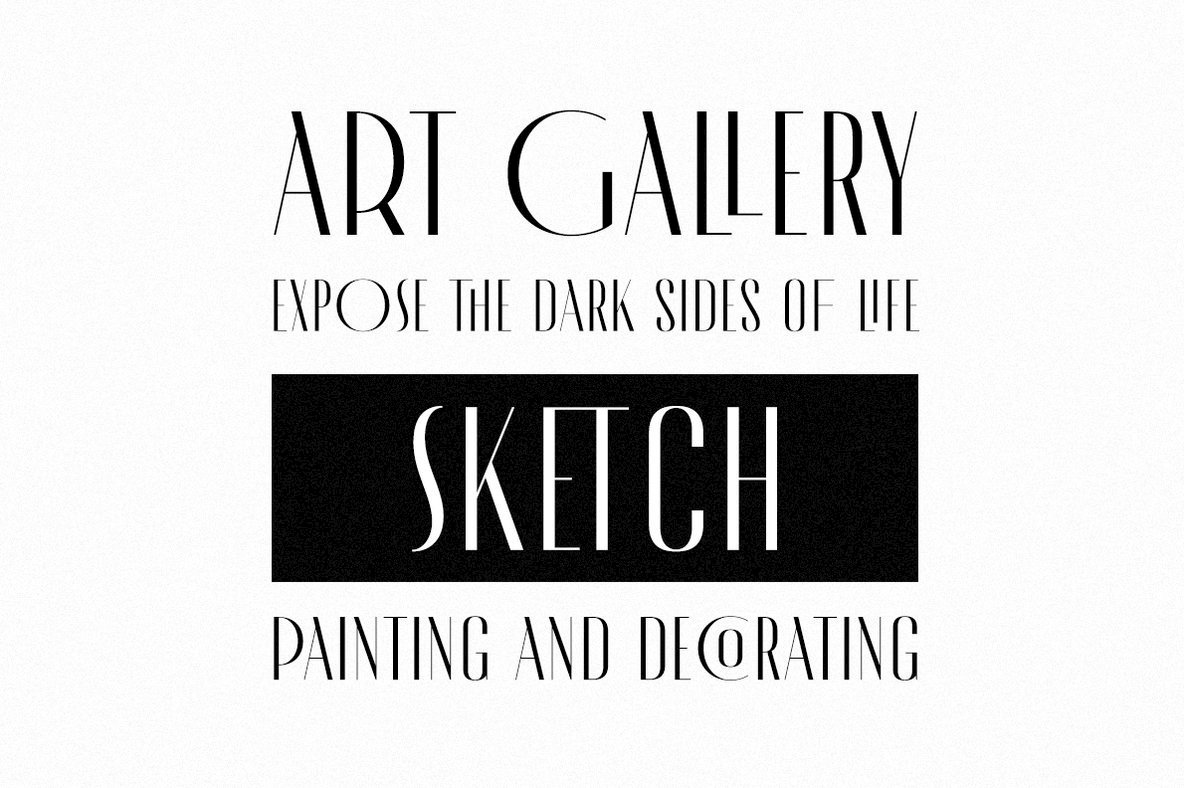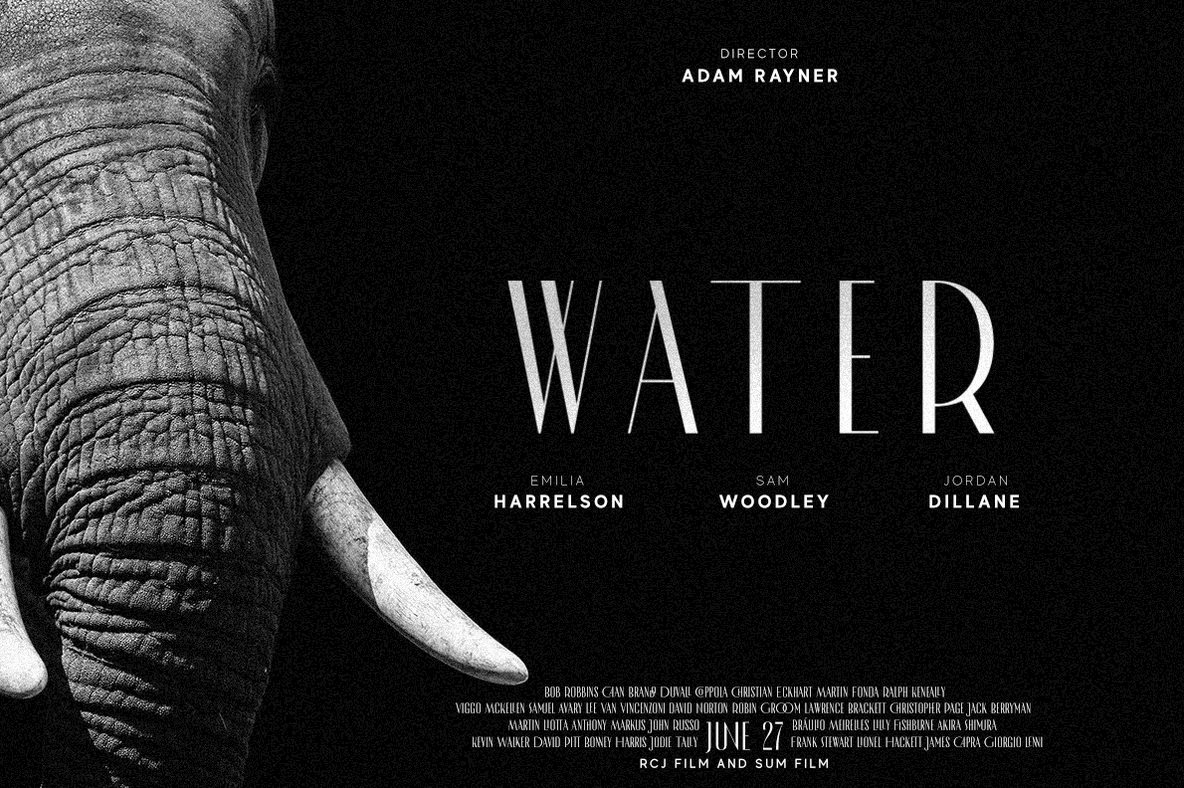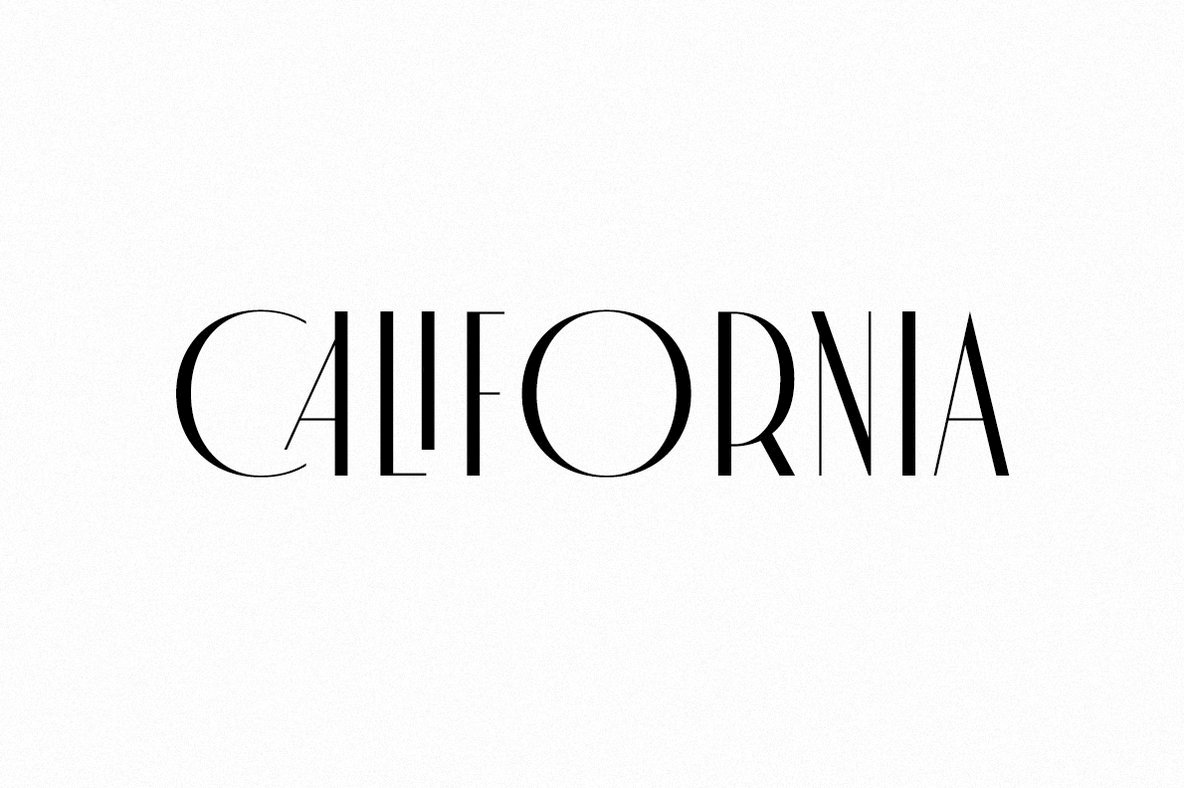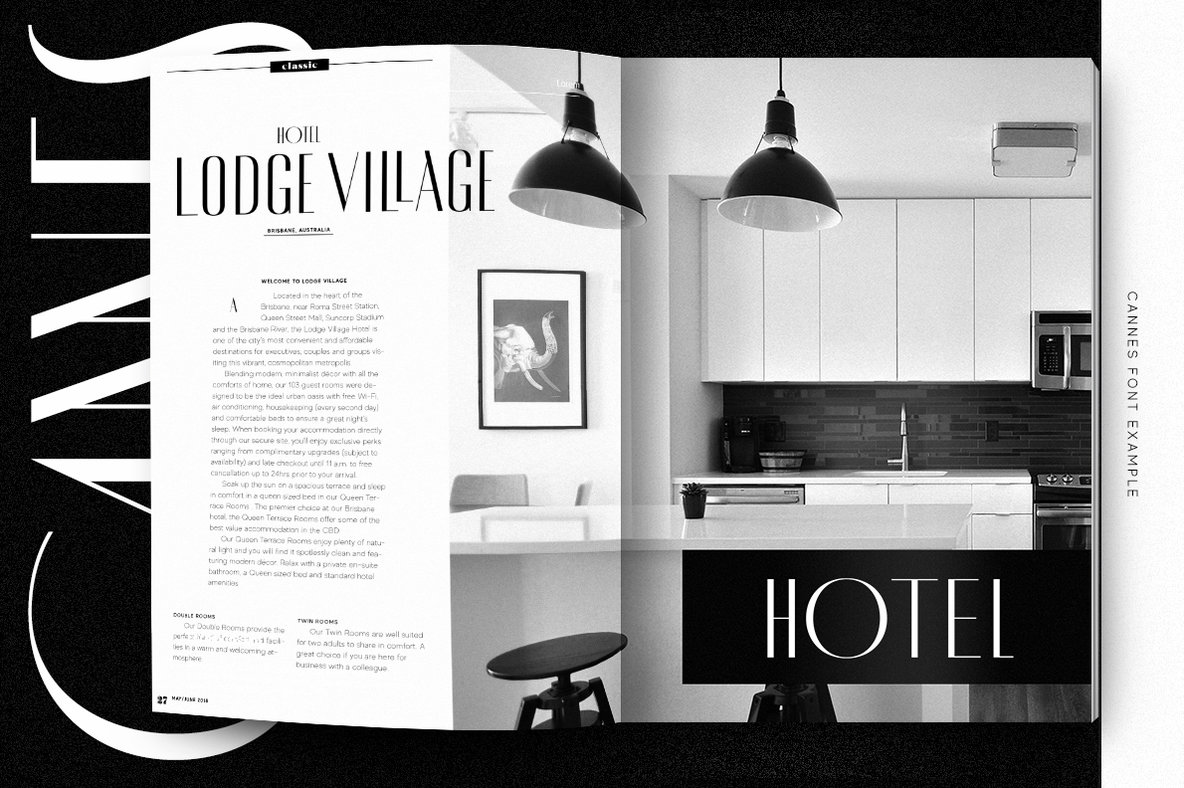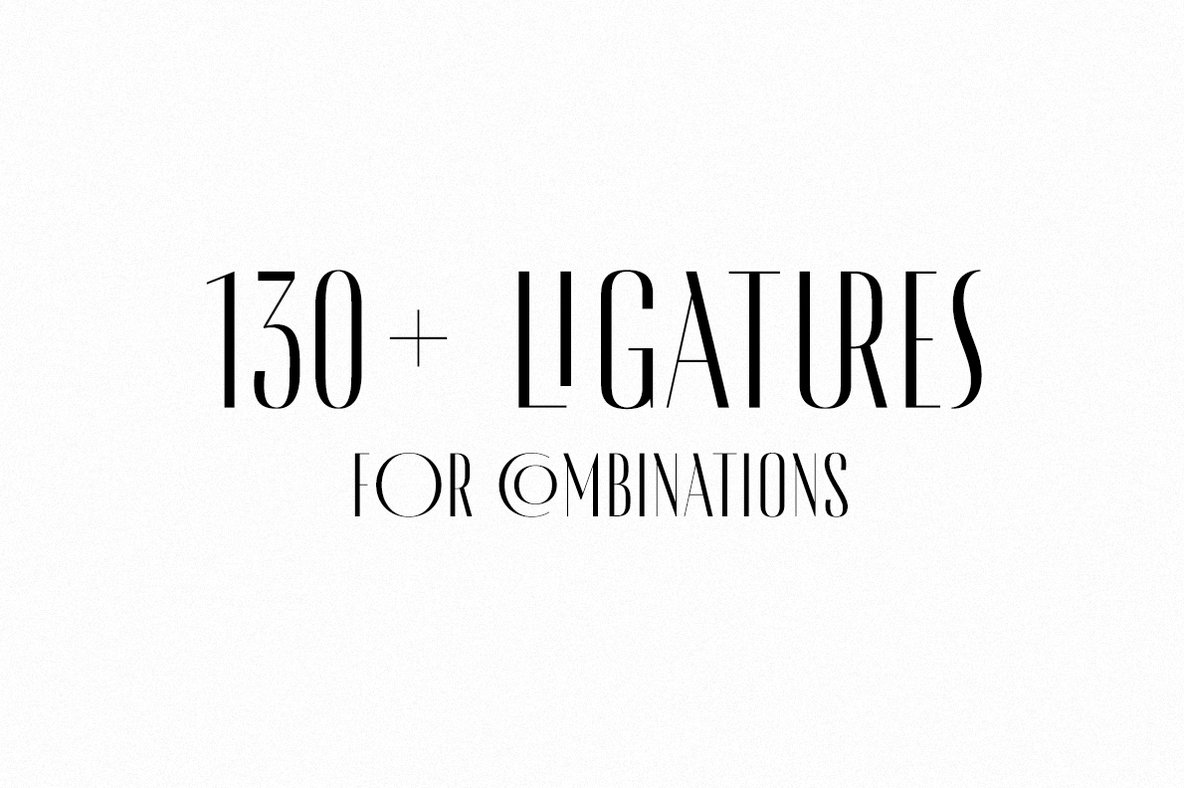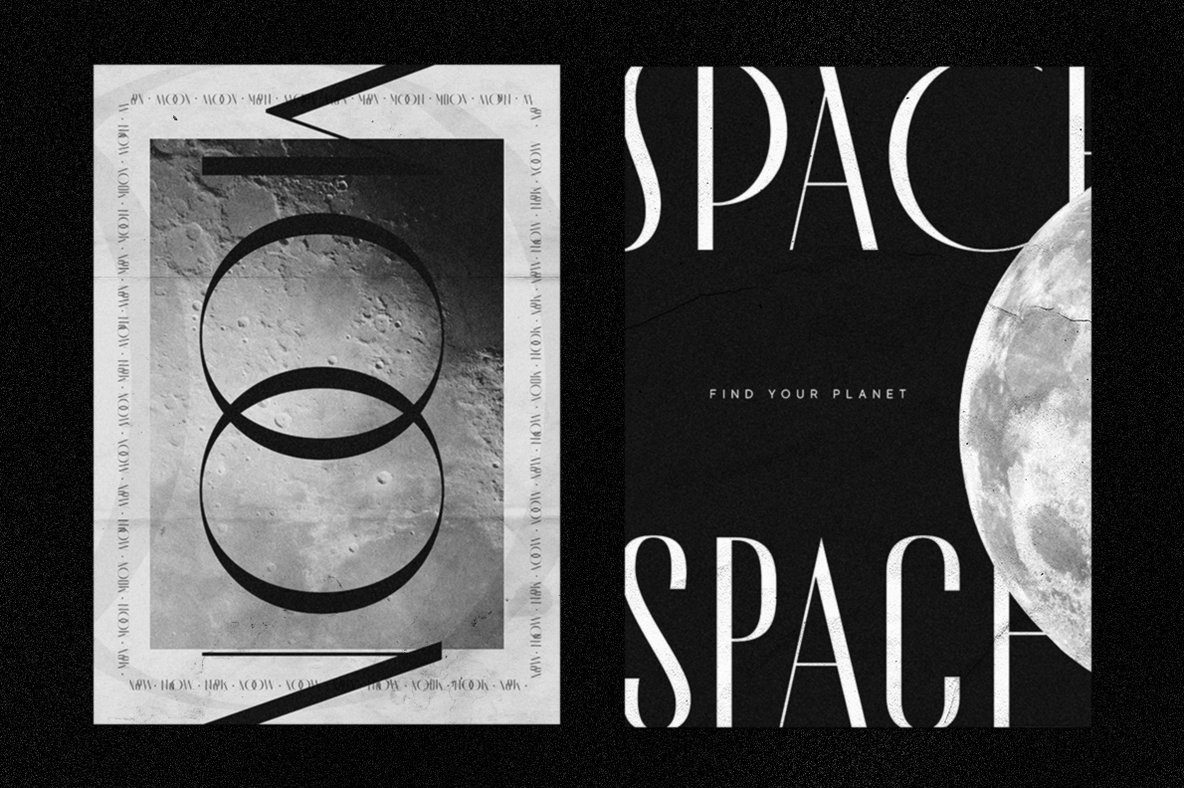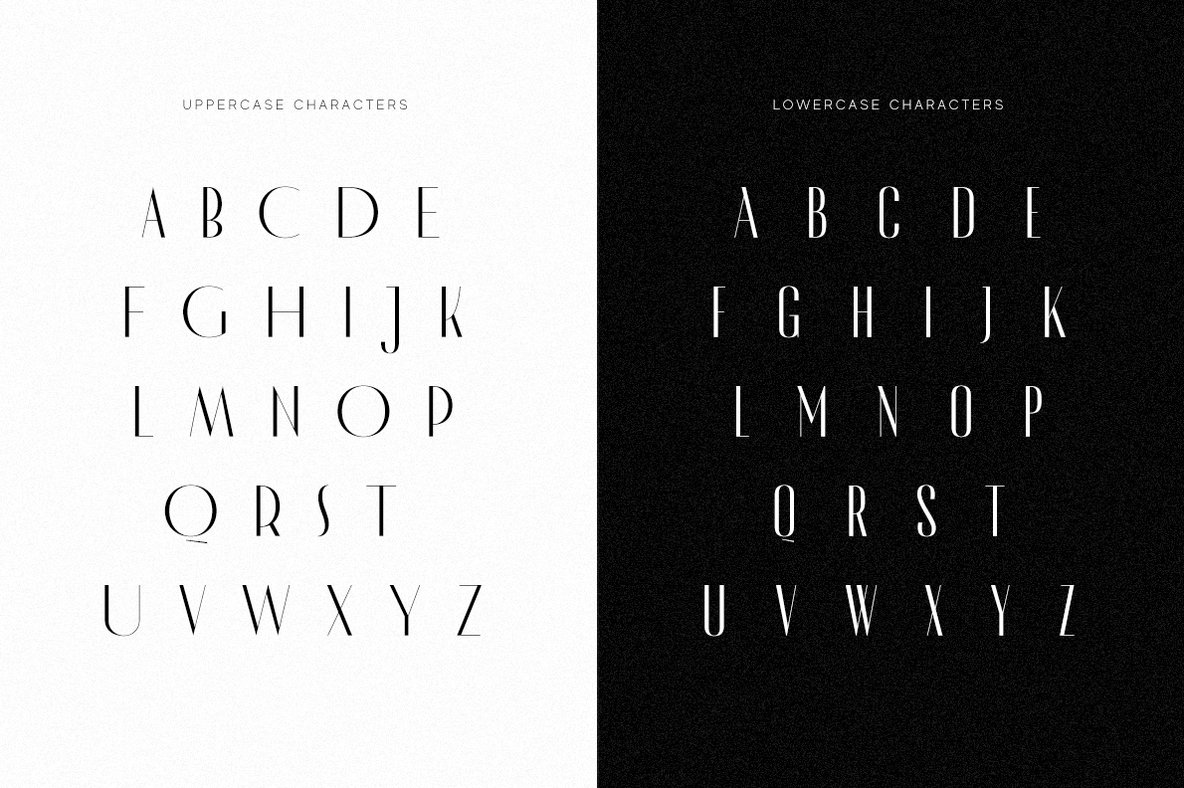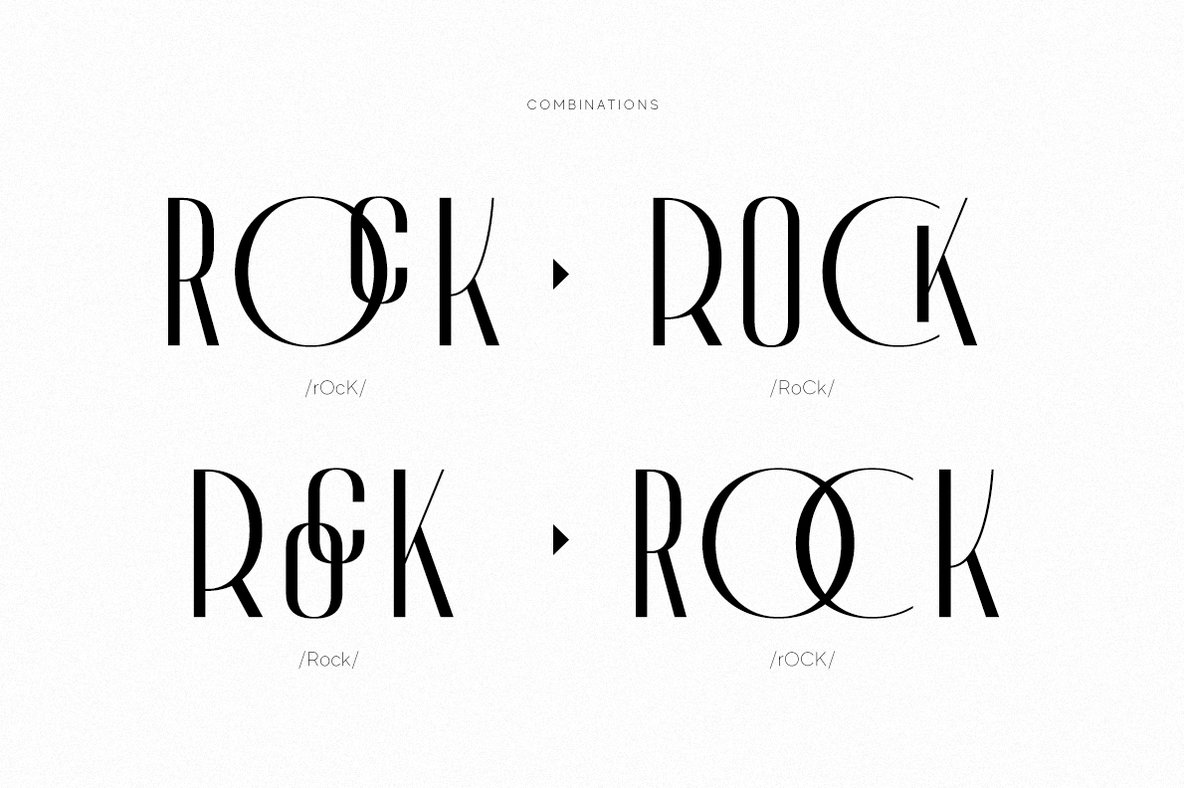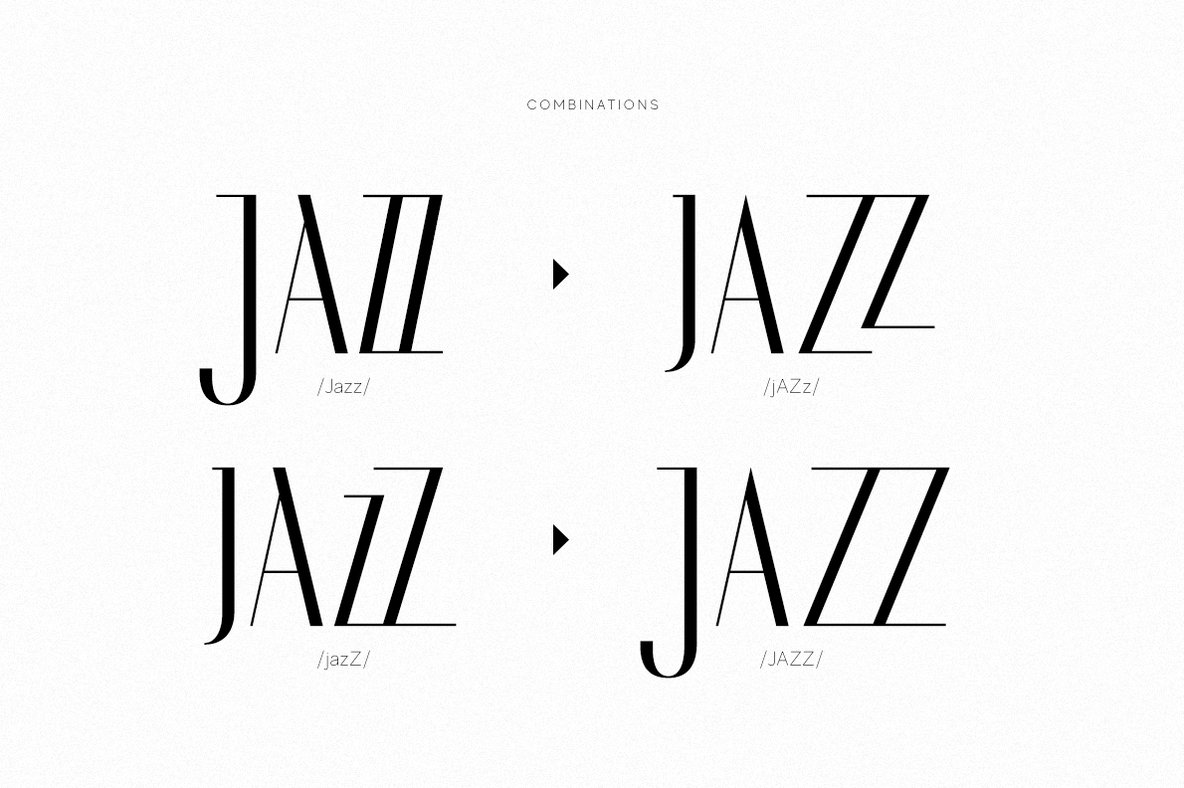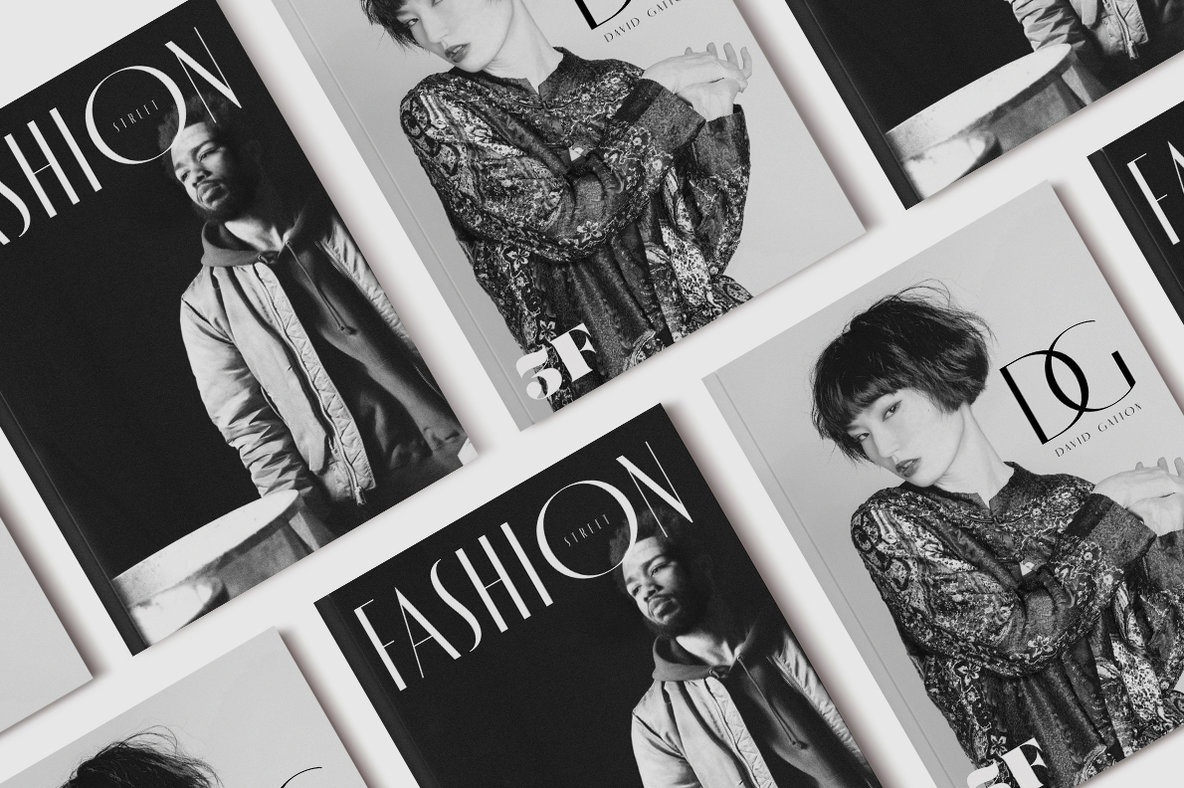
MADE Cannes Font
MADE Cannes
With roots in the art deco era, MADE Cannes offers a distinctive blend of historical allure and contemporary functionality. This typeface facilitates dynamic creativity by blending uppercase and lowercase letters. It's ideal for graphic designers seeking to infuse projects with character.MADE Cannes: Art Deco-Inspired Elegance